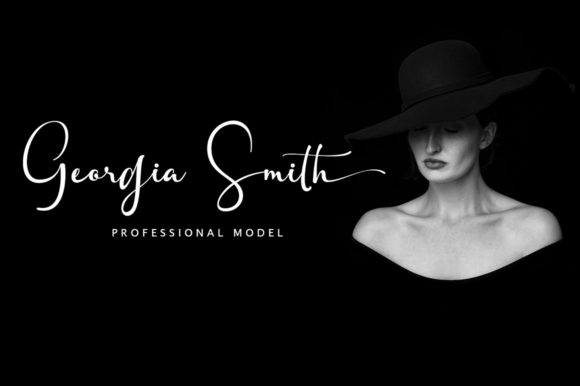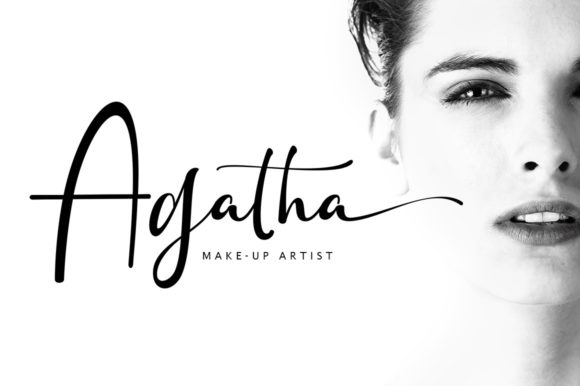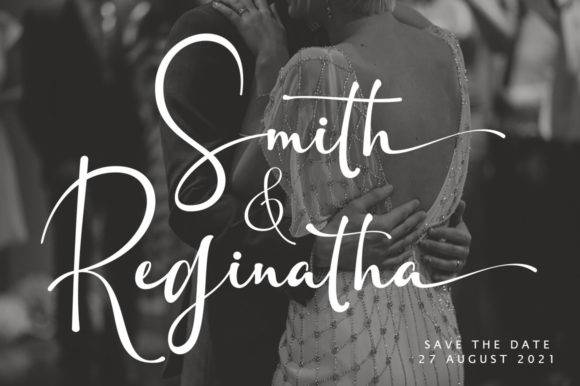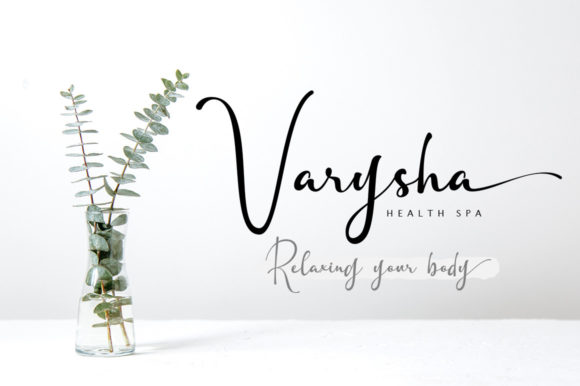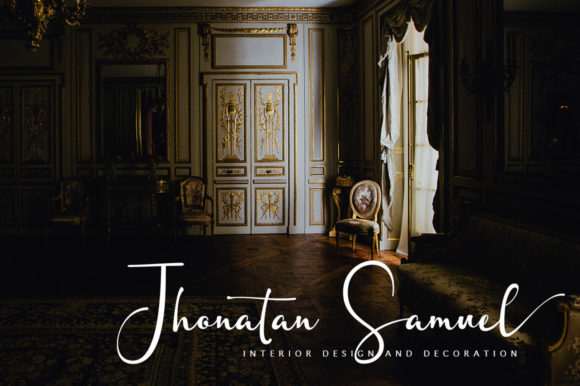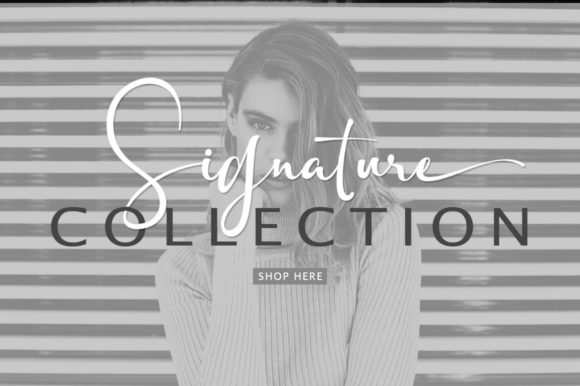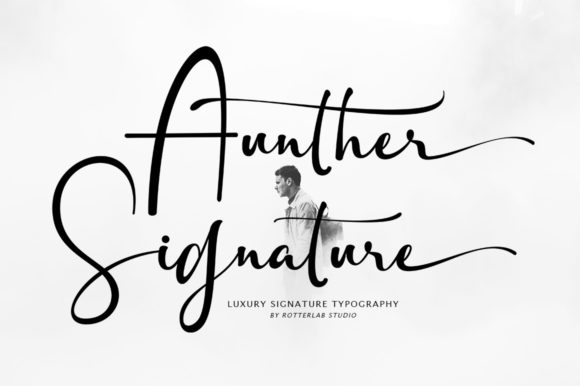
Aunther Signature Font: Elevate Your Designs with Elegance
In the world of typography, a signature font can make all the difference in creating a lasting impression. For designers and crafters seeking a touch of sophistication, Aunther Signature Font is an exquisite choice. This stunning script font boasts a thin, lettered, and graceful style that is sure to captivate your audience.
The Beauty of Aunther Signature Font
Aunther Signature is a masterpiece of font design, characterized by its slender lines and elegant curves. The font’s refined appearance makes it perfect for a variety of design projects, from wedding invitations and branding materials to digital graphics and craft projects. Its ravishing style will instantly elevate your designs, setting them apart from the ordinary.
One of the standout features of Aunther Signature Font is its PUA (Private Use Area) encoding. This means that users can access all glyphs and swashes with ease, allowing for greater flexibility and creativity in design. With PUA encoding, you can unlock the full potential of the font, experimenting with different combinations to achieve the perfect look.
Aunther Signature Font is an ideal choice for designers and crafters looking to add a touch of luxury to their projects. Whether you’re creating:
• Branding materials, such as logos and business cards
• Digital graphics, including social media graphics and blog headers
• Craft projects, like handmade cards and scrapbooking
This font is sure to impress. Its versatility and elegance make it a valuable addition to any design library.
Tips for Using Aunther Signature Font
To make the most of Aunther Signature Font, consider the following tips:
1. Pair with contrasting fonts: Combine Aunther Signature with a bold, sans-serif font to create visual interest and hierarchy.
2. Experiment with swashes: Take advantage of the font’s PUA encoding to add unique swashes and flourishes to your designs.
3. Adjust font size and color: Play with different font sizes and colors to add depth and dimension to your designs.
Aunther Signature Font is a breathtaking script font that is sure to elevate your designs. With its thin, lettered, and graceful style, PUA encoding, and versatility, it’s an excellent choice for designers and crafters seeking to create stunning projects. Whether you’re looking to add a touch of elegance to your branding, wedding invitations, or digital graphics, Aunther Signature Font is an excellent addition to your design toolkit.
Get Ready to Fall in Love with Aunther Signature Font